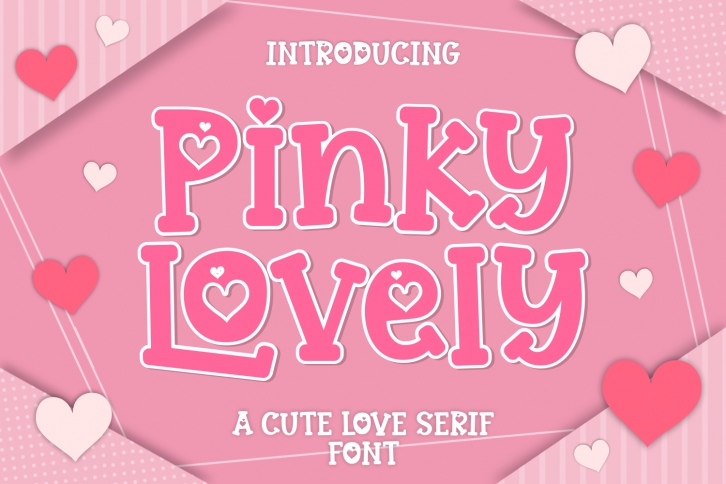
Pink Lovely is a sweet and eye-catching display font. The unique features, such as the sole outline of the ligatures and the distinctive way of using the little hearts, will make this font a must-have in your library. Remember that the font is PUA encoded, meaning you can access all delightful glyphs and swashes freely.